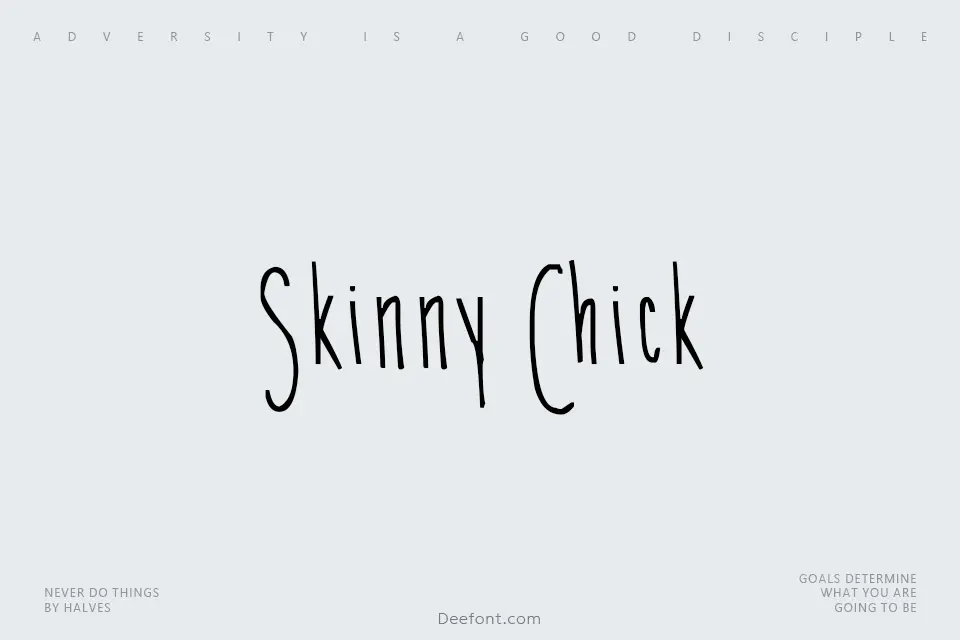
Skinny Chick Font
Skinny Chick is a sophisticated handwritten display font characterized by its thin, elegant letterforms and flowing curves. This delicate typeface features minimalist stroke weight that creates an airy, refined aesthetic perfect for design projects requiring a personal, artistic touch. With 112 carefully crafted glyphs, it excels in creating striking titles, inspirational quotes, greeting card designs, poster layouts, and decorative text elements. The font’s distinctive thin proportions make it ideal for projects targeting feminine design sensibilities, wedding invitations, fashion-related content, and any creative work seeking elegance and sophistication.